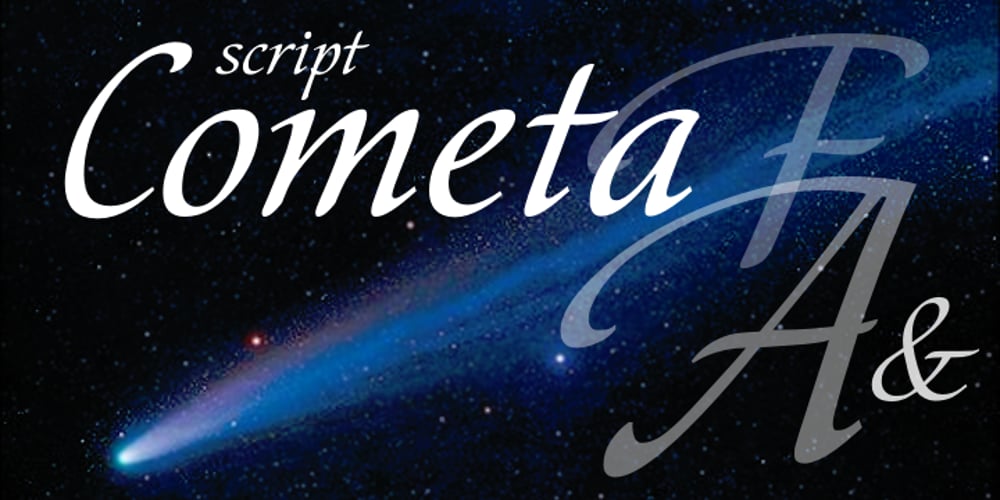
Cometa
Cometa font
Cometa Font Family was designed by Natalia Vasilyeva and published by ParaType. Cometa contains 1 styles and family package options. An original calligraphic script by Natalya Vasilyeva. Licensed by ParaType in 2003. For use in advertising and display typography.